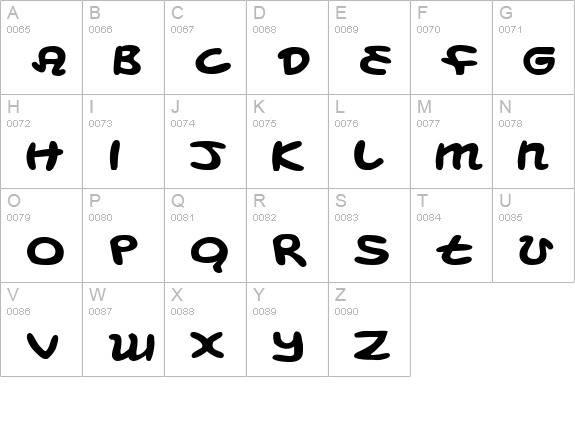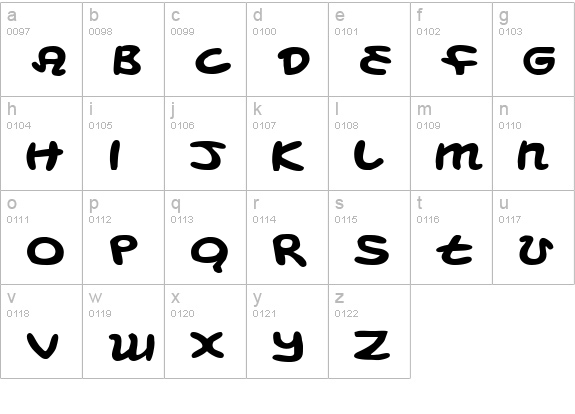
Magic Beans Expanded Font Details
Magic Beans Expanded is a distinctive, extended-width variant in the Magic typeface family \xE2\x80\x94 well suited to design and typography projects.
Magic Beans Expanded font is a whimsical and playful typeface that exudes charm and creativity. With its unique and quirky design, this font is perfect for adding a touch of magic to your projects. The extended version of the original Magic Beans font, Magic Beans Expanded offers even more versatility and style. Featuring elongated and exaggerated letterforms, Magic Beans Expanded is sure to make a bold statement in any design. Whether you're working on a poster, logo, or branding project, this font will add a touch of fun and whimsy to your work. Best of all, Magic Beans Expanded is available for free download at FontsMarket.com. So go ahead and unleash your creativity with this enchanting font today!